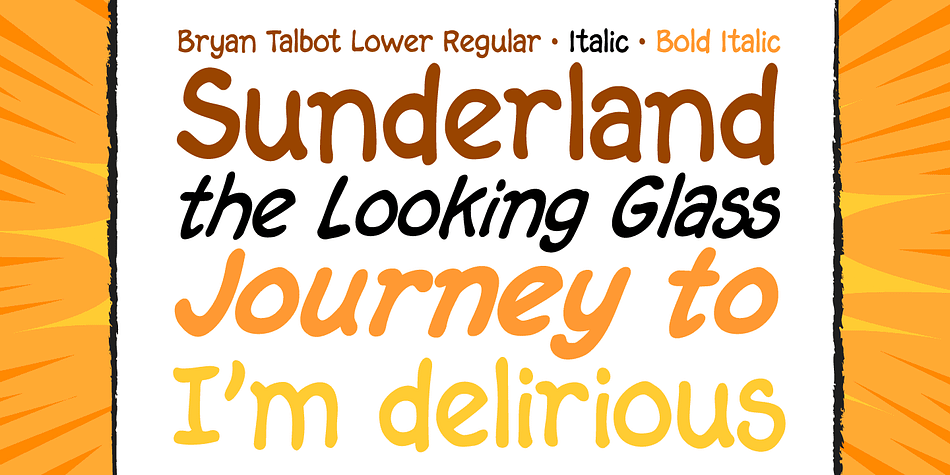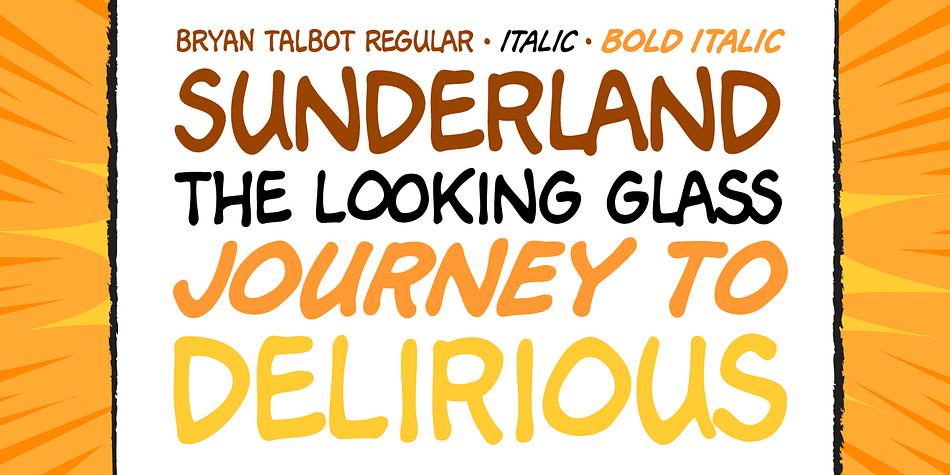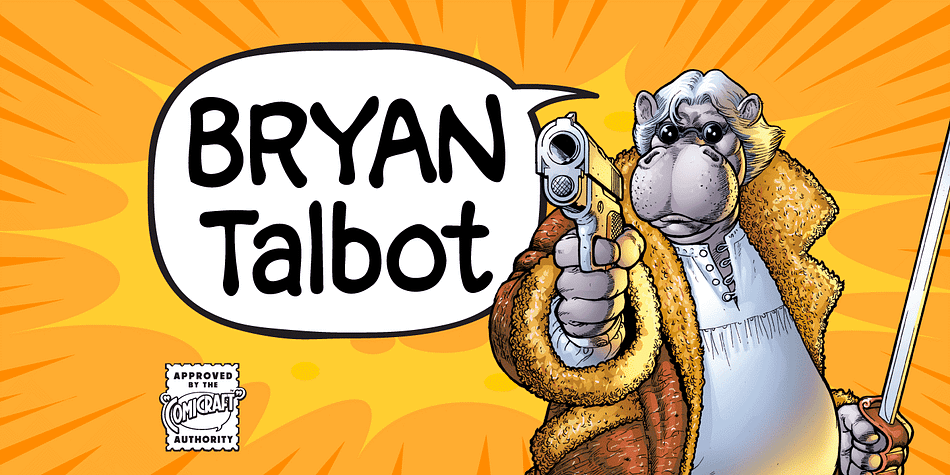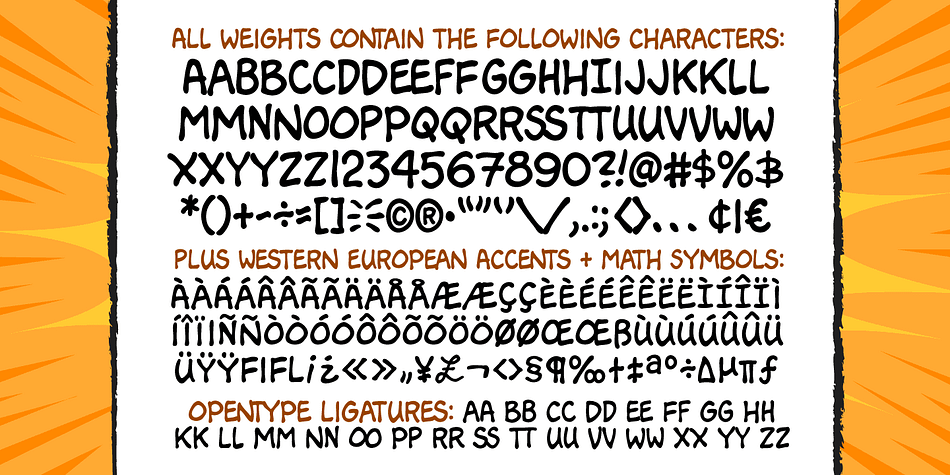
Designed by Bryan Talbot, Bryan Talbot is a comic font family. This typeface has six styles and was published by Comicraft.
The lettering style of Lancashire’s finest comic book artist, graphic novelist and NEMESIS deviant Bryan Talbot is finally at your beck and call thanks to the good graces of those awfully nice chaps at Comicraft. Created for Bryan’s magnum opus, ALICE IN SUNDERLAND, the Bryan Talbot font will take you on a journey into delirium, through the looking glass of British underground comix into the complex world of experimental narrative techniques and bestow upon you semi-legendary cult status and prestigious awards from no less than the New York Times.*